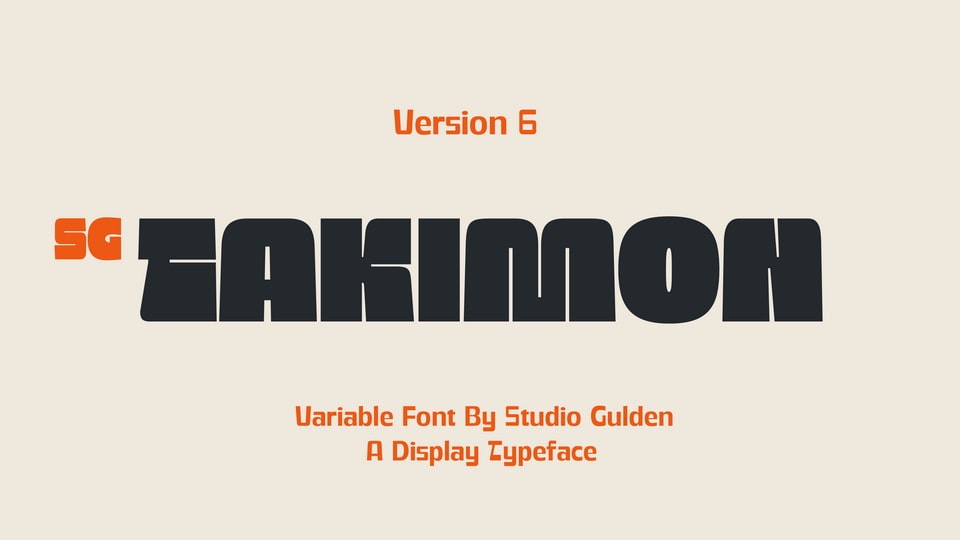
Jan 31, 2025DisplaySG Takimon Font SG-TAKIMON is a display typeface with variable weight. SG Takimon has uppercase and lowercase letters. It’s fun, pop, and playful! Font DetailsDesigned by: Studio GuldenWebsiteLicense: Free for personal use Download SG Takimon FontFile size: 574.08 KBCreated: February 16, 2025Updated: February 16, 2025 Download Explore similar fonts Bonkurt Font Lokistar Font July Bubble Font Woofie Koofie Font Palm Leaf Font Dalahara Font # Bold# Cool# Creative# Fancy# Heavy# Playful# Vintage More fonts by Studio GuldenSG Sunblum FontSG Gluper FontSG Wristan FontSG Ardio FontSG Gulden Display FontSG Munke FontSG Scratter FontSG Briscy Font